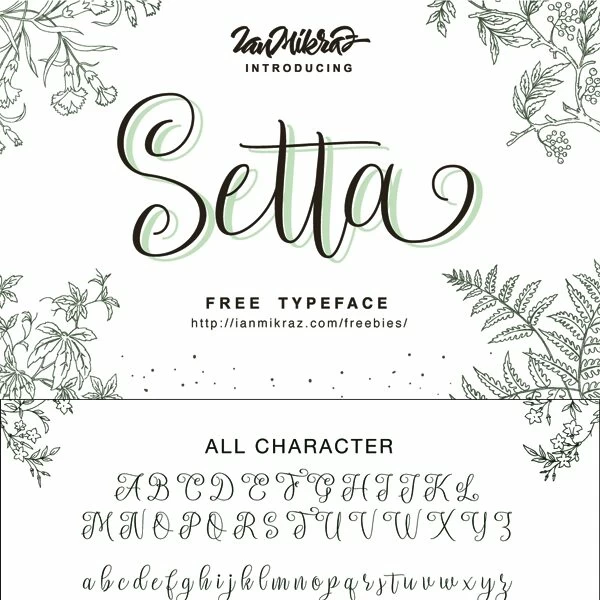
Free Font- Setta Script Typeface:
I wanted to share this new gorgeous font from Ianmikraz.com called Setta!
In his own words, “Setta Script is suitable for Apparel Brand, any greeting cards, Painting design style, or any design that needs natural and personal touch. Mix and match the alternate characters to add an attractive message to your design.”
Definitely a new favorite of mine in my grown font library.